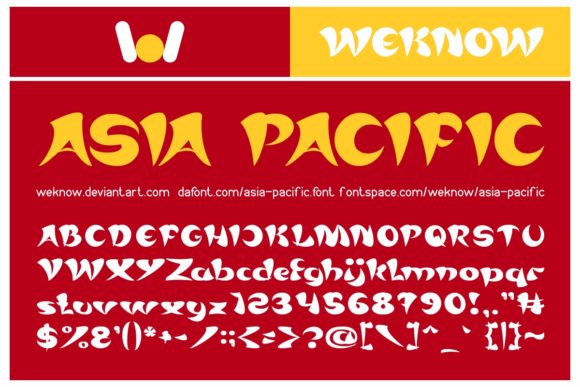
Step into the captivating realm of the Asia Pacific Font family, a dazzling ensemble of display fonts that will ignite your designs with Eastern allure.
Crafted by the visionary minds at weknow, Asia Pacific is a typographical masterpiece that seamlessly blends the enigmatic essence of Japan, the refined strokes of China, and the vibrant rhythm of Korea. Its captivating characters dance across your screen, evoking an exotic tapestry of cultures and traditions.
Immerse yourself in the bold and alluring personality of Asia Pacific. Its carefully crafted glyphs command attention, inviting you to weave tales of adventure, passion, and cultural exploration. Each stroke, each curve, is a testament to the rich heritage that inspires this extraordinary font family.
Unleash your imagination and embark on a creative odyssey with Asia Pacific. Design captivating posters that transport viewers to ancient temples and bustling markets. Craft evocative packaging that whispers legends of distant lands. Create eye-catching logos that embody the vibrant spirit of the East.
Asia Pacific is not just a font; it's a gateway to a world of storytelling and artistic expression. Its versatility transcends boundaries, empowering you to inject a touch of Eastern charm into any project, from branding and marketing to website design and social media campaigns.
Prepare to be mesmerized by the captivating magnetism of Asia Pacific. Its bold presence and alluring style will elevate your designs to new heights, captivating your audience with every stroke.